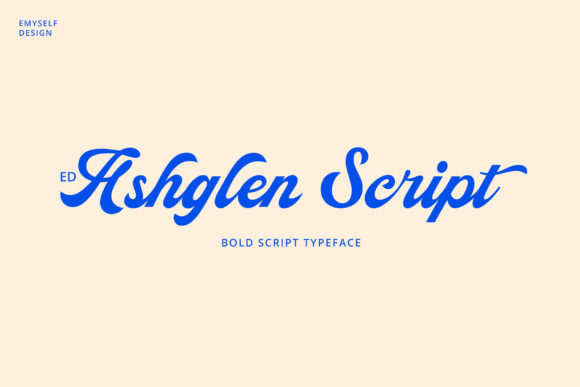
Unleash the Enchantment of Ashglen Script - The Ultimate Font for Timeless Elegance
Dive into the world of Ashglen Script, a captivating handwritten font that weaves a spell of elegance and charm. Its sweeping strokes and delicate curves evoke the beauty of a bygone era, adding a touch of timeless sophistication to your creative endeavors. Prepare to be mesmerized as Ashglen Script transforms your designs into masterpieces that resonate with grace and allure.
Picture this: your wedding invitations adorned with the enchanting strokes of Ashglen Script, exuding an air of romance and refinement. It's the perfect font to capture the essence of your special day, leaving an everlasting impression on your guests. Or, envision your thank you cards radiating warmth and gratitude, each word penned with the utmost care and elegance.
With Ashglen Script, your designs transcend the ordinary and enter the realm of the extraordinary. Its versatility knows no bounds, effortlessly enhancing everything from logos and branding to greeting cards and social media posts. Experience the joy of creating designs that captivate and inspire, leaving a lasting impact on your audience.
Immerse yourself in the allure of Ashglen Script, a font that speaks to the heart and ignites the imagination. Its timeless beauty, meticulous craftsmanship, and endless versatility make it an indispensable tool for designers, creatives, and individuals seeking to elevate their work to new heights. Embrace the enchantment of Ashglen Script today and let your creativity soar!